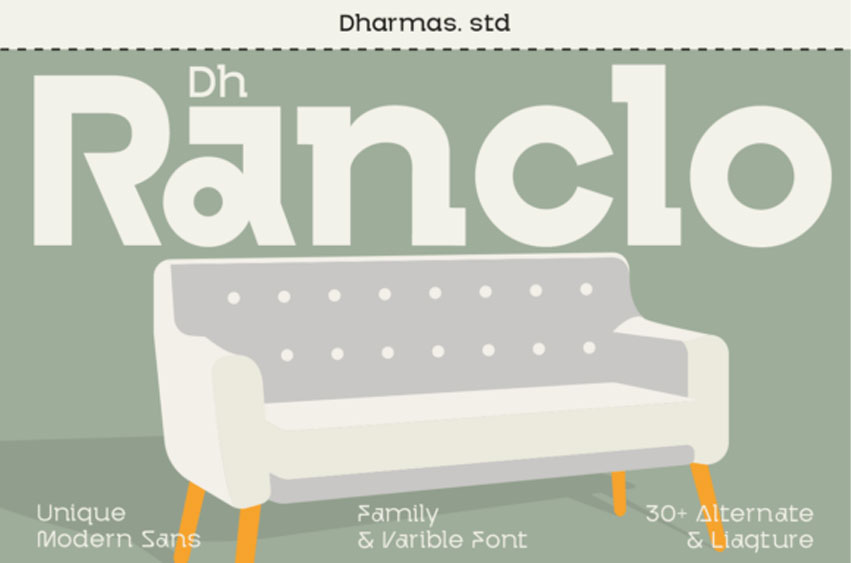
Ranclo Font is a modern display typeface designed for high-end branding and professional design projects. With its clean, geometric letterforms and refined aesthetic, this font blends contemporary minimalism with timeless elegance, perfect for businesses that demand a polished and authoritative presence.
Featuring 7 variable weights—Thin, Extra Light, Light, Regular, Medium, Semi Bold, and Bold—along with 32 unique alternates and ligatures, Dh Ranclo provides flexibility for a wide range of design applications. Whether you’re crafting a corporate identity, designing sleek business presentations, or creating a standout logo, this typeface delivers clarity, structure, and sophistication.